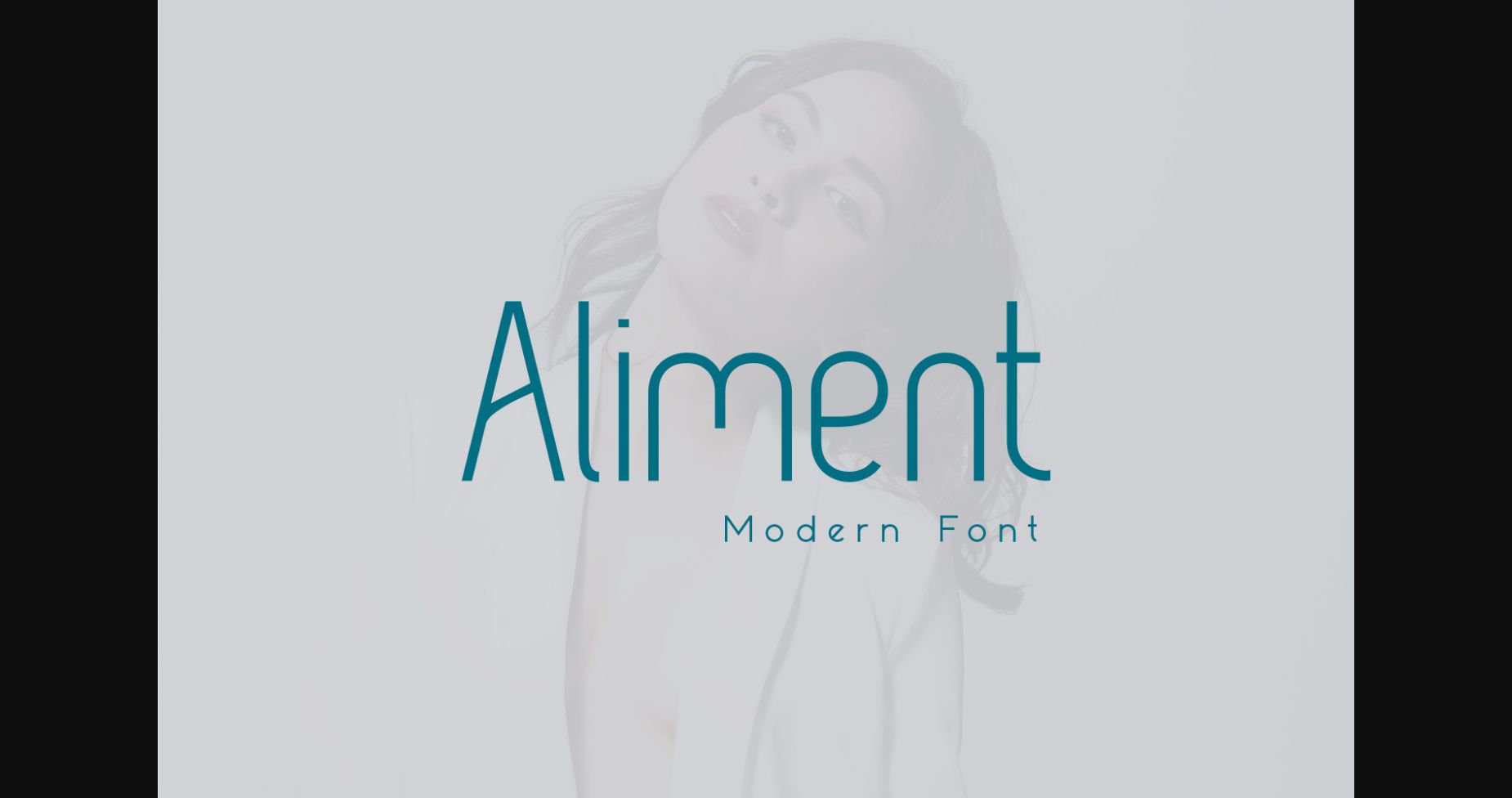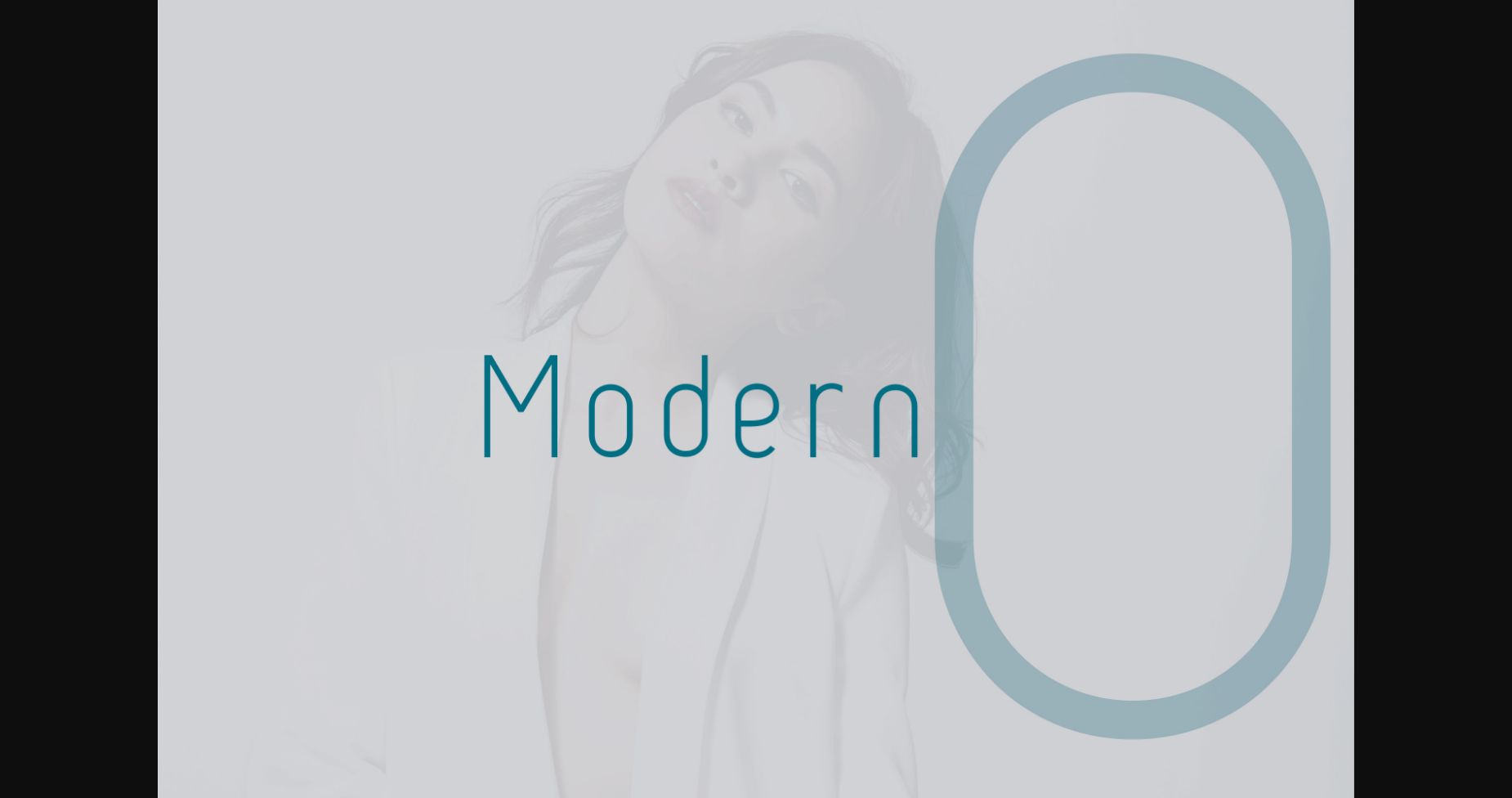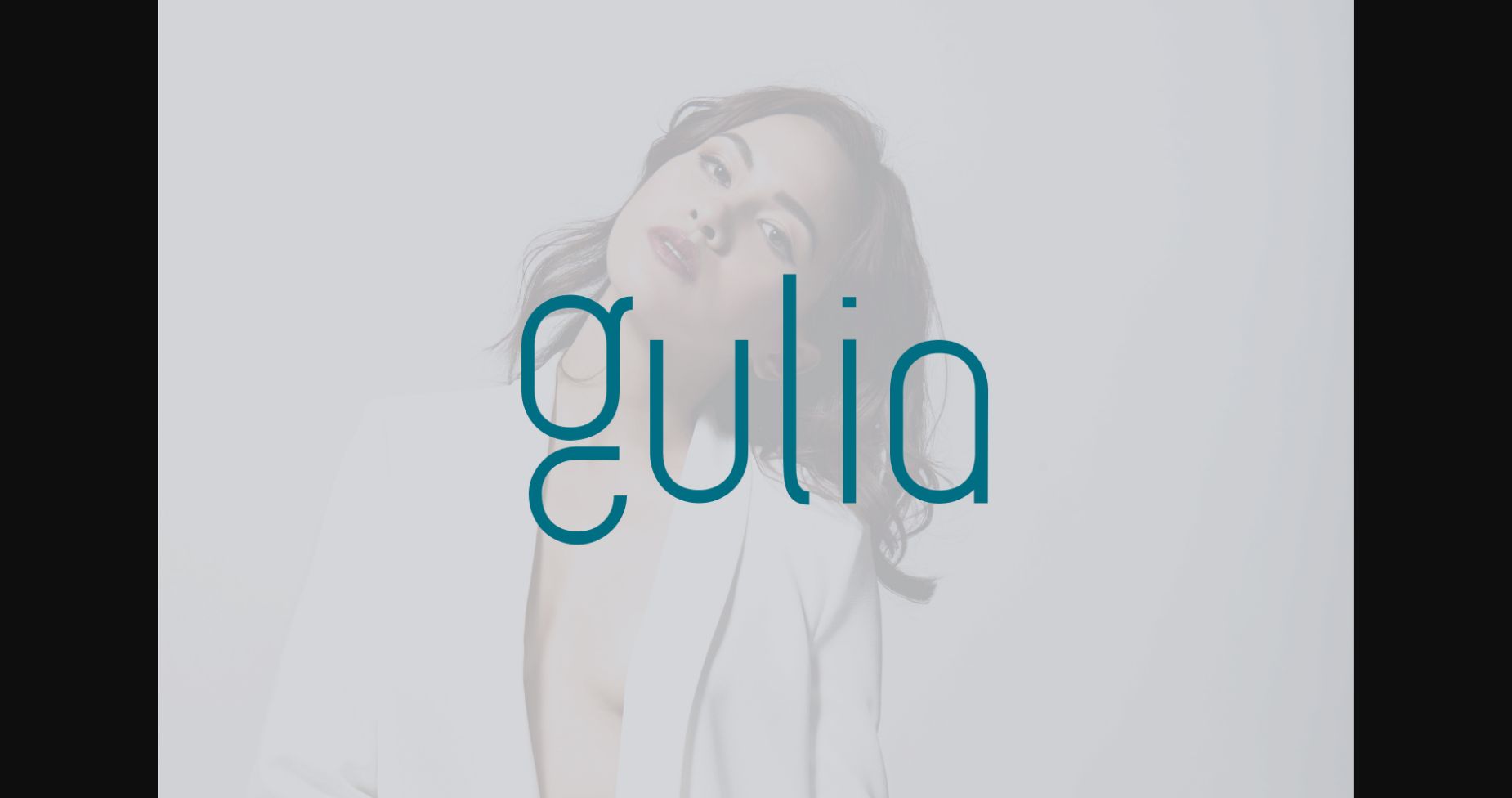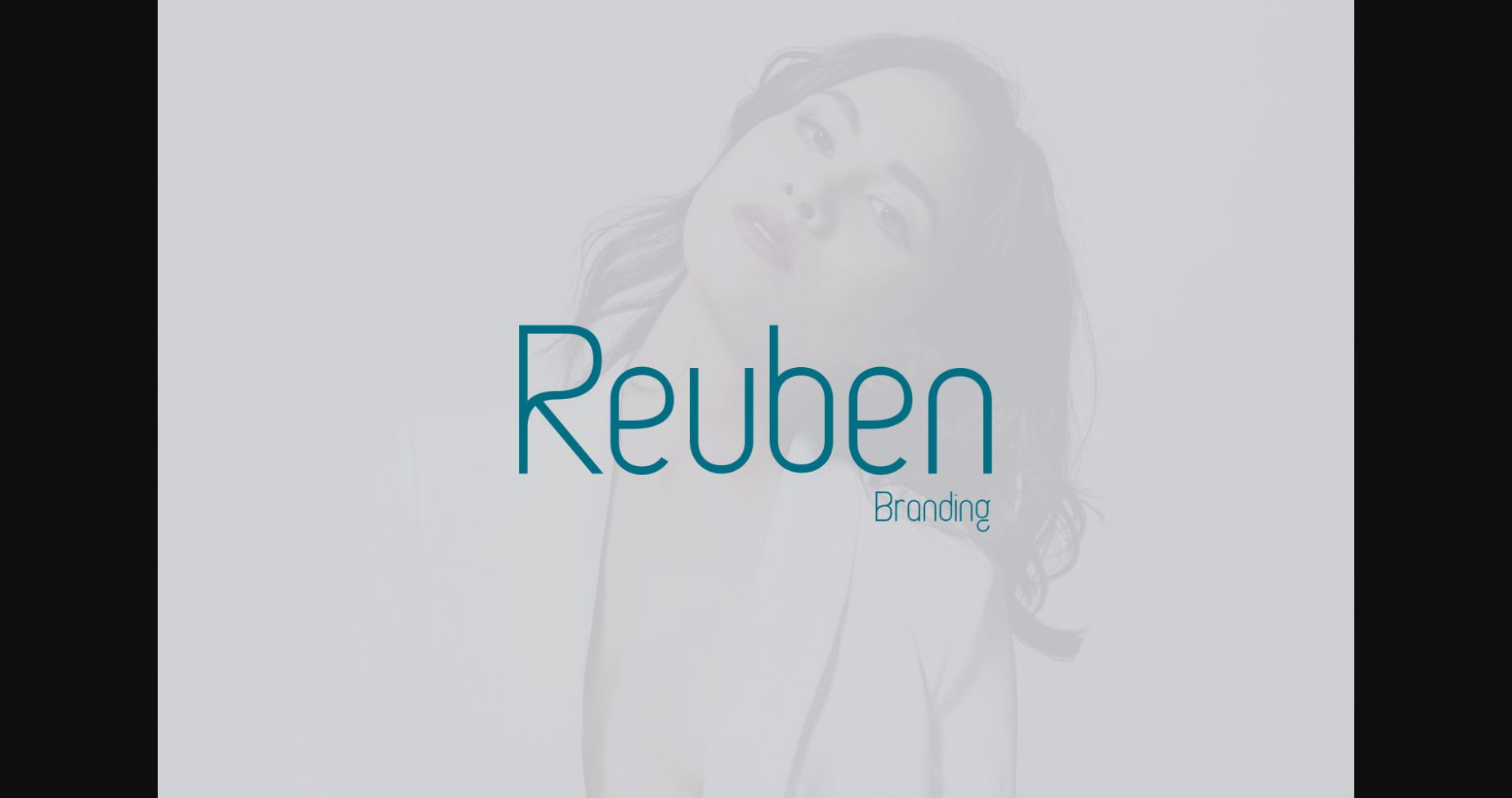
HomeSans Serif FontsAliment Font Sans Serif Fonts Aliment Font FacebookXPinterestWhatsApp 1 of 6 ... Aliment Font Poster 2... Aliment Font Poster 3... Aliment Font Poster 4... Aliment Font Poster 5... Aliment Font Poster 6... About Aliment Font Aliment is a modern and minimal sans serif font. With well-spaced and beautifully rounded characters, this lovely typeface is the perfect choice for magazine titles, books, social media posts, brand names, and so much more! DOWNLOAD NOW People also explored Chrisye Font Cogan Rounded Font Ruxtoni Font Hello Font Rotisseria Font Fake Smile Font Tania Font Last Kiss Font Reverbbb 347 0 TagsAlimentAliment Font Previous articleVector FontNext articleMother Sunflower Font LEAVE A REPLY Cancel reply Comment: Please enter your comment! Name:* Please enter your name here Email:* You have entered an incorrect email address! Please enter your email address here Website: Save my name, email, and website in this browser for the next time I comment. Personal Use Free Jellia Personal Use Free Read more about this font Hello Sister Personal Use Free Read more about this font Bonhomie Personal Use Free Read more about this font Mike Ferrari 16017 Personal Use Free Read more about this font BLOG How to Install and Use Fonts on Windows, macOS, and Web Projects How to Install and Use Fonts on Windows, macOS, and Web Projects Fonts are a crucial part of design and branding. Whether you’re designing a... Best Fonts for YouTube Videos: Make Your Thumbnails Stand Out Modern Sans-Serif Fonts That Brands Love in 2025 Free vs Paid Fonts: Why Investing in Premium Fonts Is Worth It